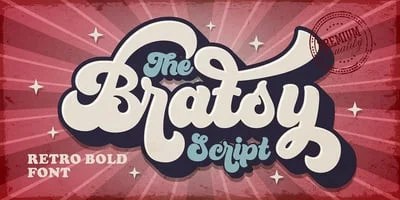
Bratsy Script
Bratsy Script Font
Bratsy Script Font is perfect for children's fashion brands, playful party invitations, youth-oriented marketing, teen magazines, rebellious apparel designs, quirky greeting cards, bold social media graphics, attitude-driven campaigns, and any project requiring typography with spirited personality and youthful rebellious charm.
What makes Bratsy Script Font exciting is its rebellious attitude that captures the confident spirit and playful defiance of youth culture with hand-lettered script forms that seem written with teenage boldness and unapologetic self-expression. This spirited typeface embodies the fearless energy of young rebellion with flowing strokes that reflect the casual confidence and authentic voice of a generation that refuses to be ignored. The font's attitude-filled character and youthful sophistication make it perfect for brands targeting young audiences who value authenticity, boldness, and the freedom to express their unique personality.
The Bratsy Script Font family includes regular weight with complete uppercase and lowercase alphabets, numerals, punctuation marks, and attitude-inspired decorative elements. The font maintains consistent rebellious charm throughout all letterforms while ensuring excellent readability for both bold headlines and spirited text applications in youth-focused and fashion contexts.
Whether you're designing for teen fashion brands, creating rebellious marketing materials, or developing youth culture branding with authentic attitude aesthetics, Bratsy Script Font brings unmatched youthful energy and spirited sophistication to your projects. This dynamic typeface transforms ordinary text into bold expressions of teenage confidence that celebrate individuality, authenticity, and the fearless spirit of youth rebellion. The font's spirited character makes it ideal for fashion brands, youth entertainment, and attitude-driven marketing. Download this exceptional font today and bring the confident energy of youthful rebellion to your design projects with authentic teenage spirit and bratty script elegance.